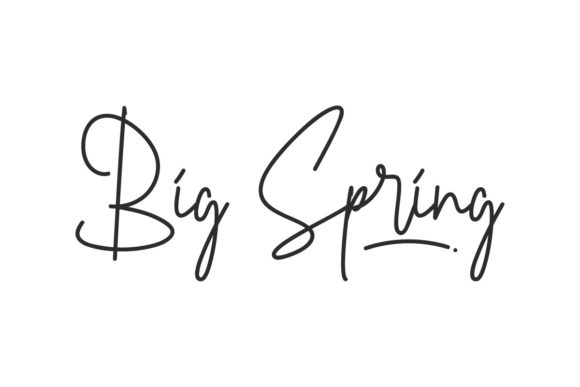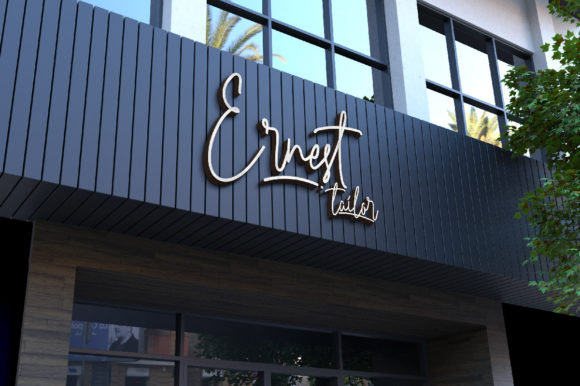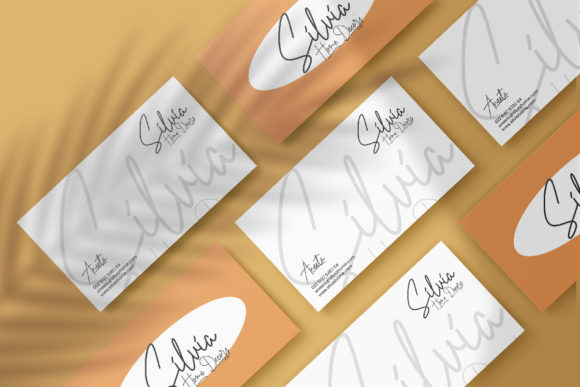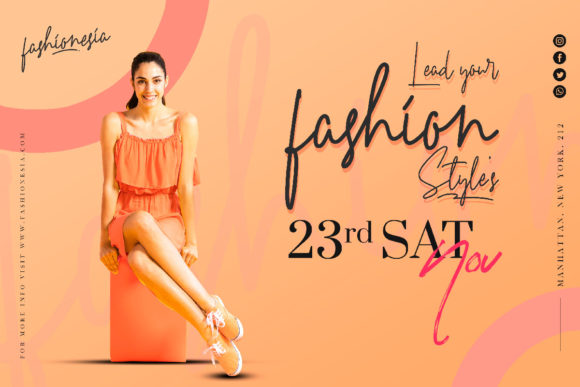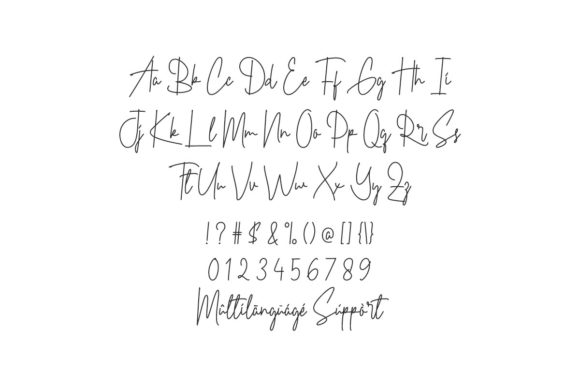
About Big Spring Font
Big Spring Font is a casual signature handwritten font. It will be great for any projects including branding, logos, stationery, business cards, signages, flyers, brochures and more. This font is PUA encoded which means you can access all of the amazing glyphs and ligatures with ease!